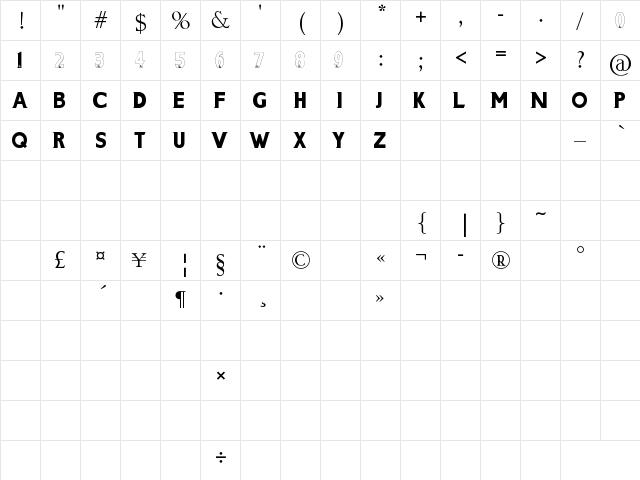
BPL Regular
Design Context for BPL Typeface
BPL takes a measured approach to typography — its balanced proportions and neutral character make it a reliable workhorse for both digital and print work.
Pro Tip: Pair BPL with a font of contrasting weight or personality to build a more expressive typographic hierarchy.